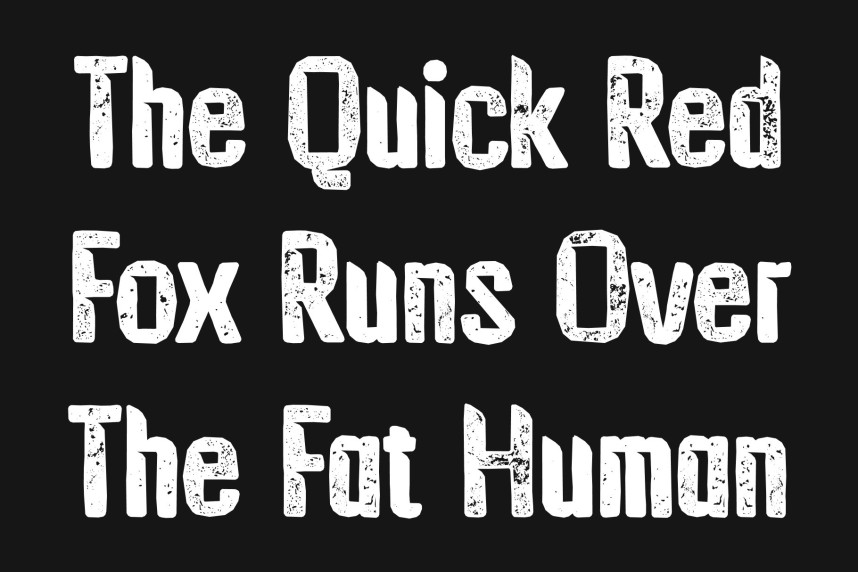
CS Mathias Stamp Font – Condensed Display Font: Where Precision Meets Functional Expression
Engineered Structure with Controlled Tension
This is a condensed display typeface defined by precision, tension, and purposeful construction. Its narrow proportions are carefully engineered to maximize space efficiency while maintaining a bold and commanding presence. Each letterform is crafted with deliberate control, creating a refined balance between density and clarity that performs seamlessly in complex layouts.